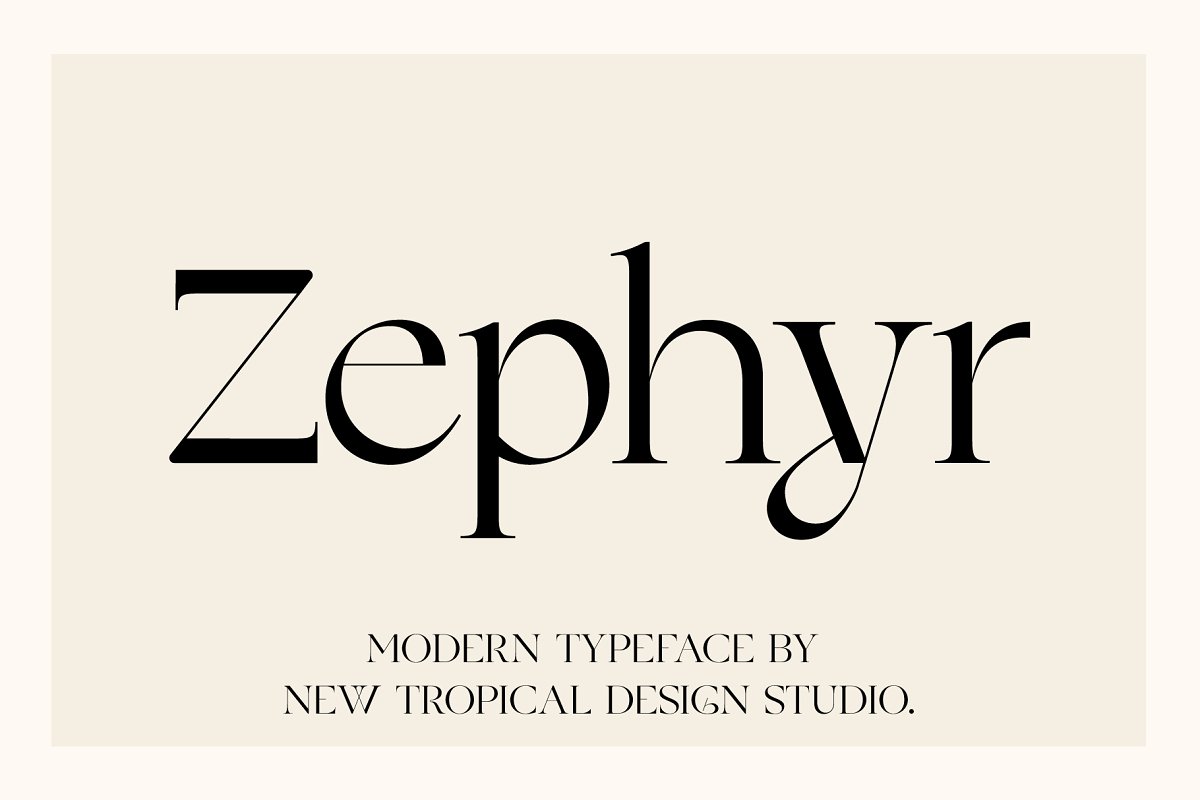
+23 Zephyr Typeface Font Free Download References. Web zephyr is a tall display typeface in 4 different styles. Web zephyr font creative fabrica download font zephyr font 2.88/5 461 votes, rated based on results identification download zephyr font.
Free fonts often have not all characters. Zephyr is a stunning stencil serif typeface with lots of unique characters. Download more than 10000 free fonts hassle free desktop and mobile.
Web Zephyr Is A Sinuous Roman Font Available In Both Regular And Openface Inline Versions.
Web zephyr is an amazing stencil serif font family. The work should convey an understanding of the. It includes uppercase english letters and numbers.
Web the ultimate font download. Web california zephyr is an original display typeface by joey lopez, inspired by art deco railroad liveries. If you want to create professional printout, you should consider a commercial font.
Zephyr Is A Sinuous Roman Font Available In Both Regular And Openface (Inline) Versions.
Web the zephyr font provided is for typography style knowledge only. The project brief was to create a typeface based on an image, person, object, phenomenon, or animal. It comes with 16 fonts in 8 weights with matched italics, contains all caps letters and numbers.